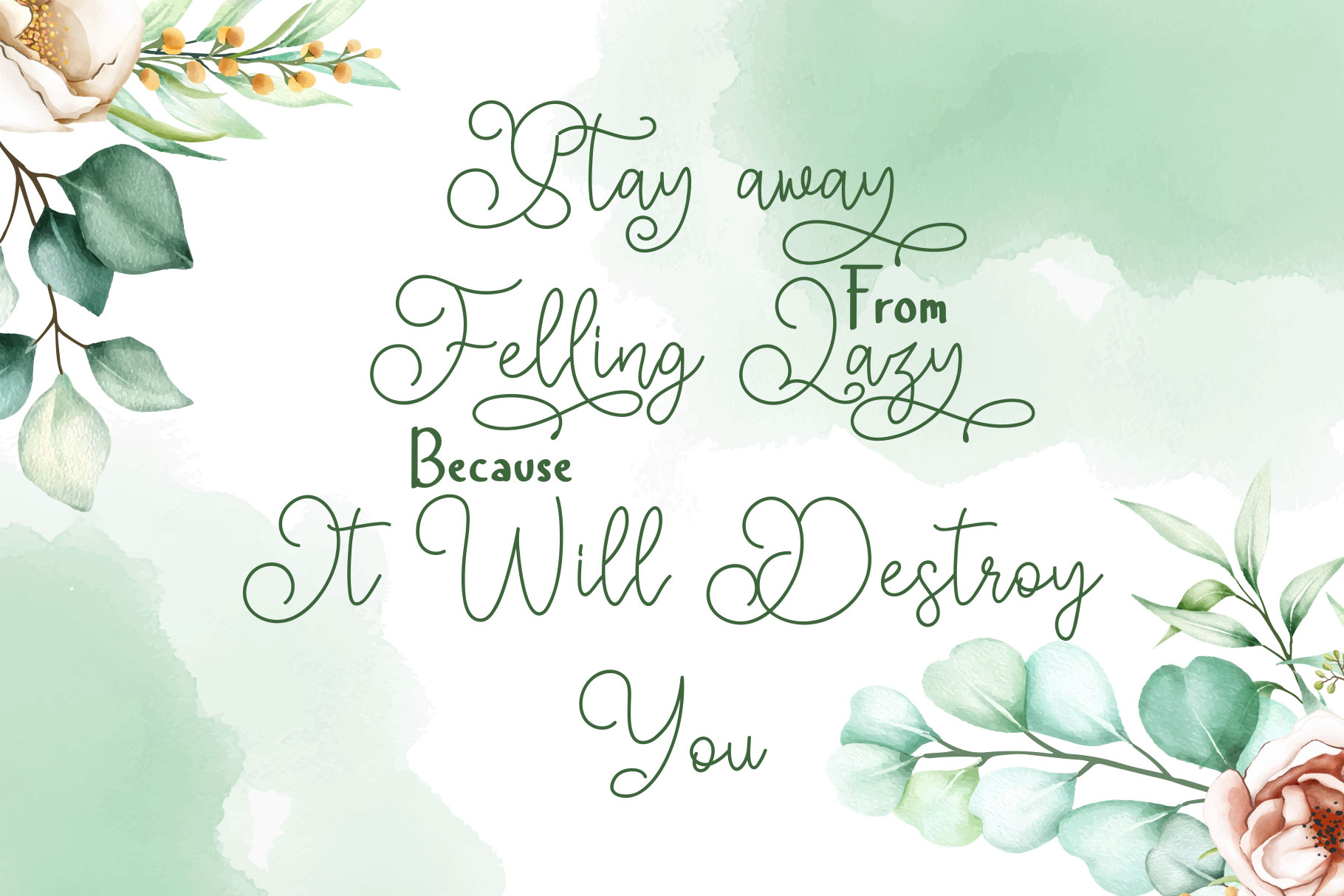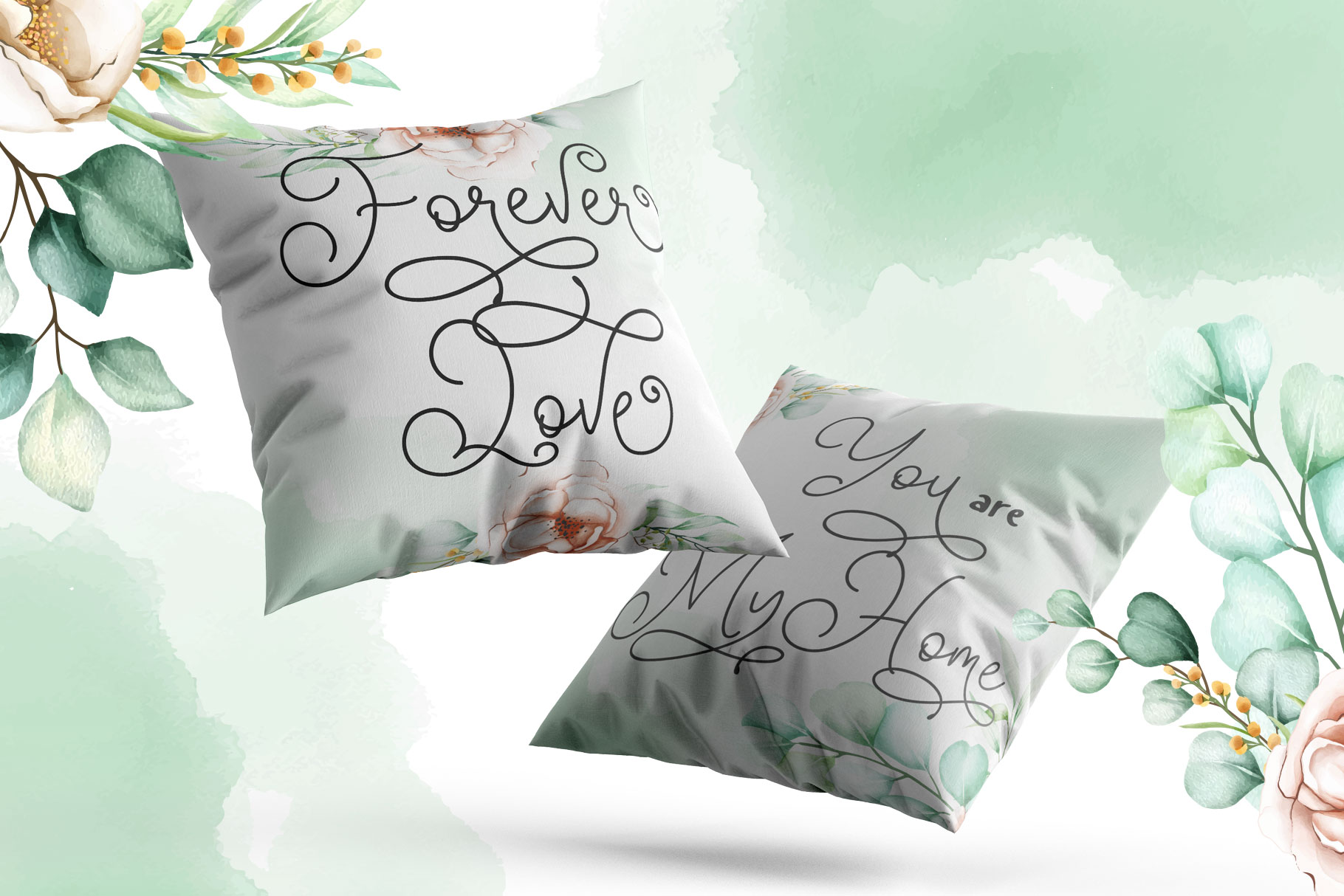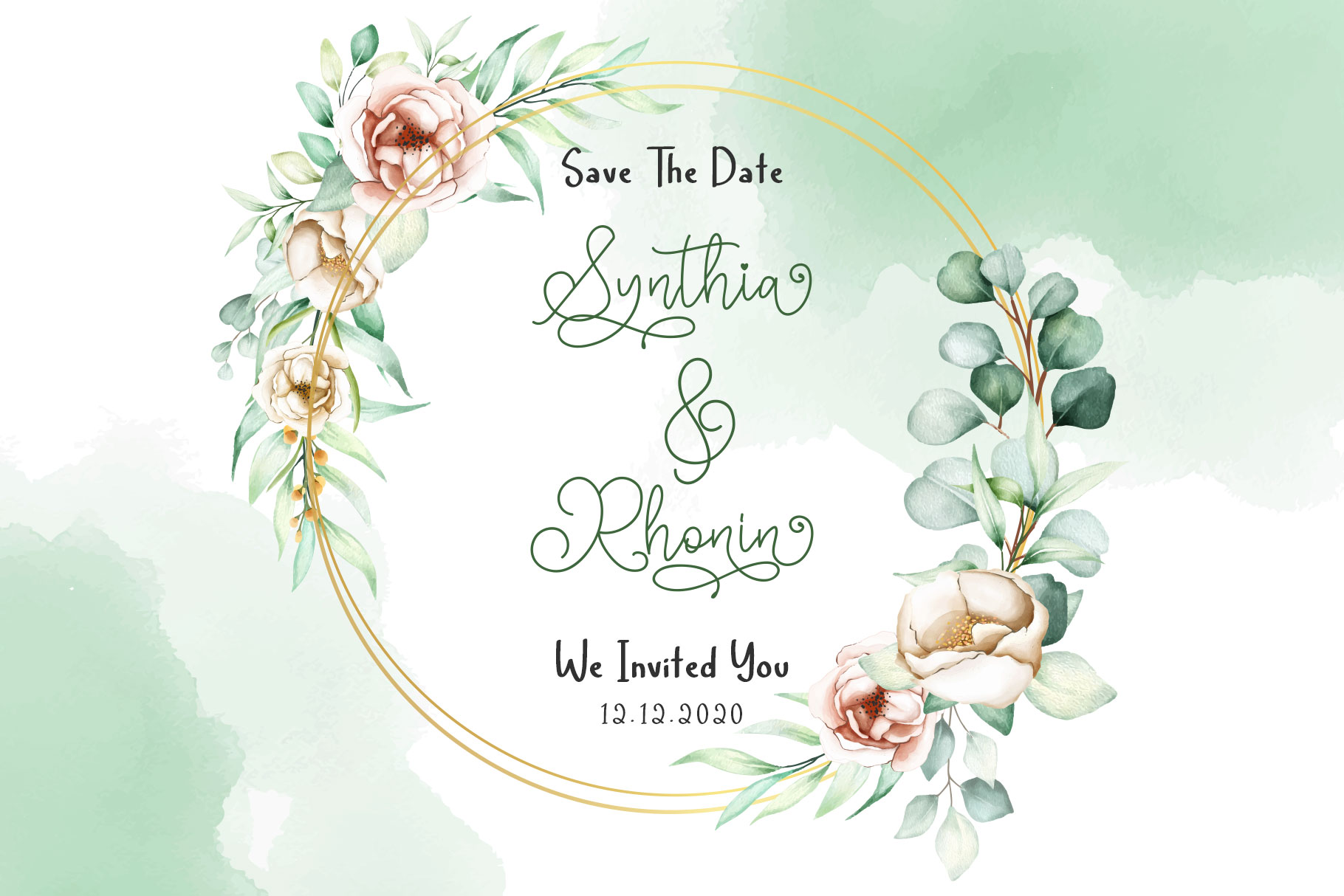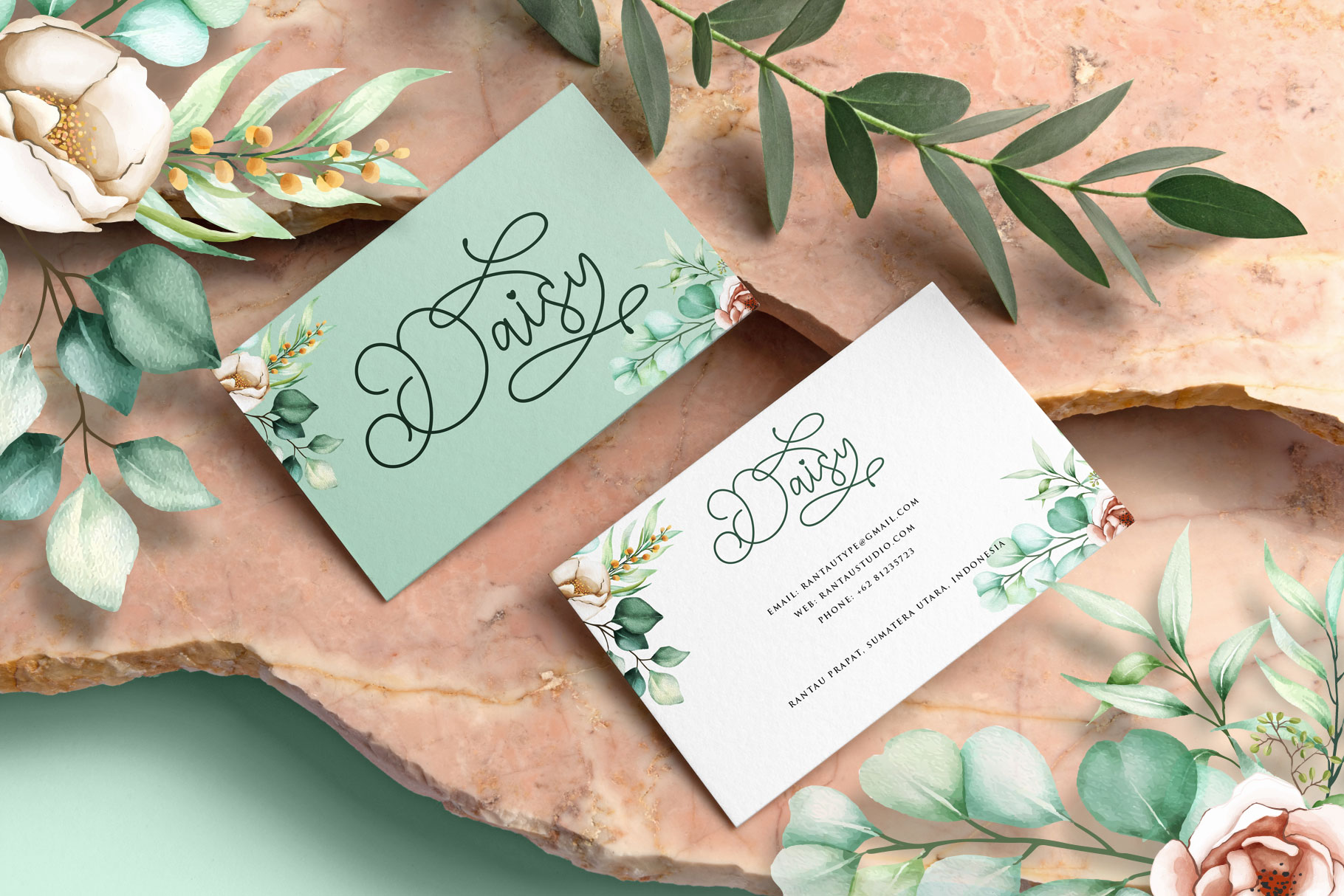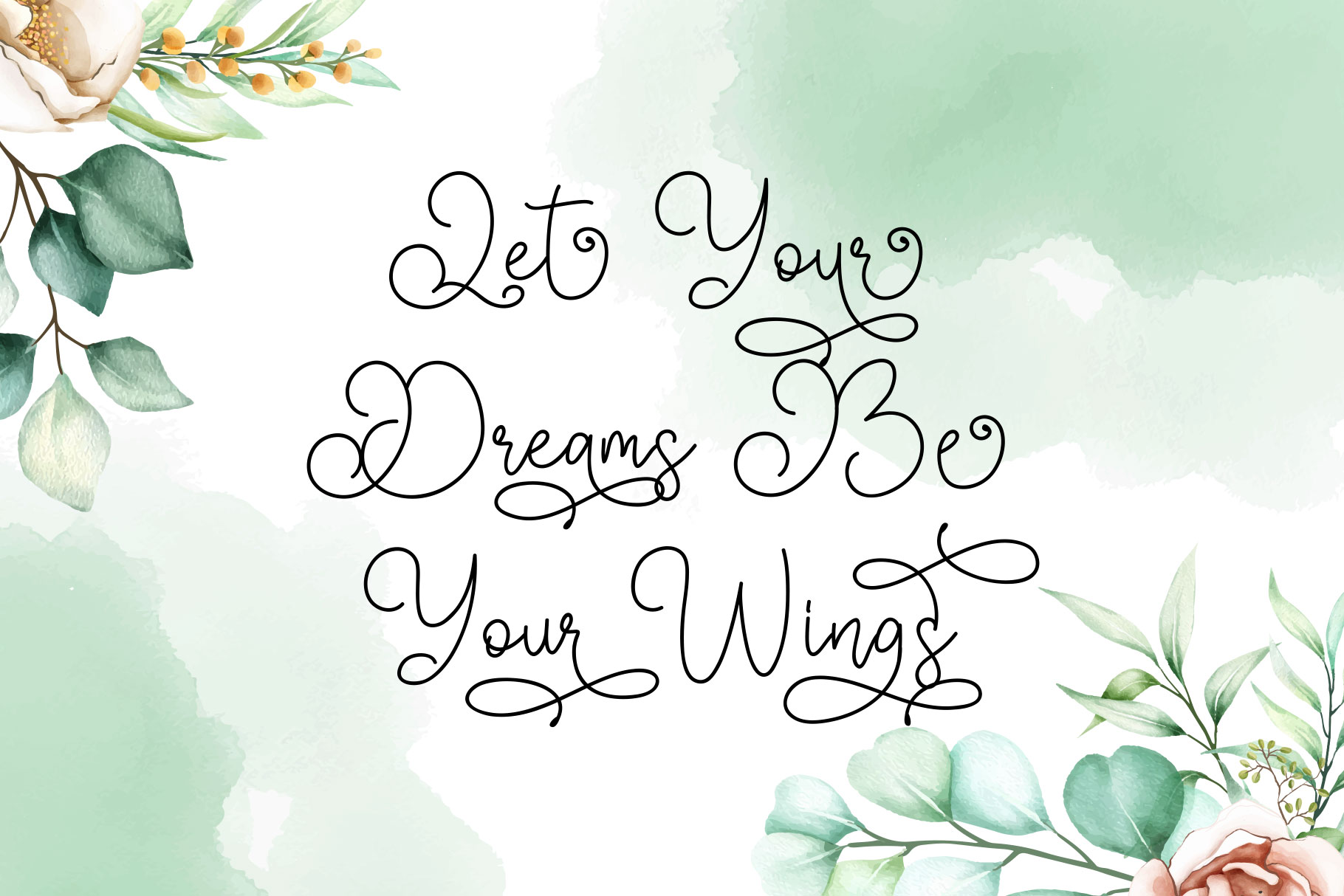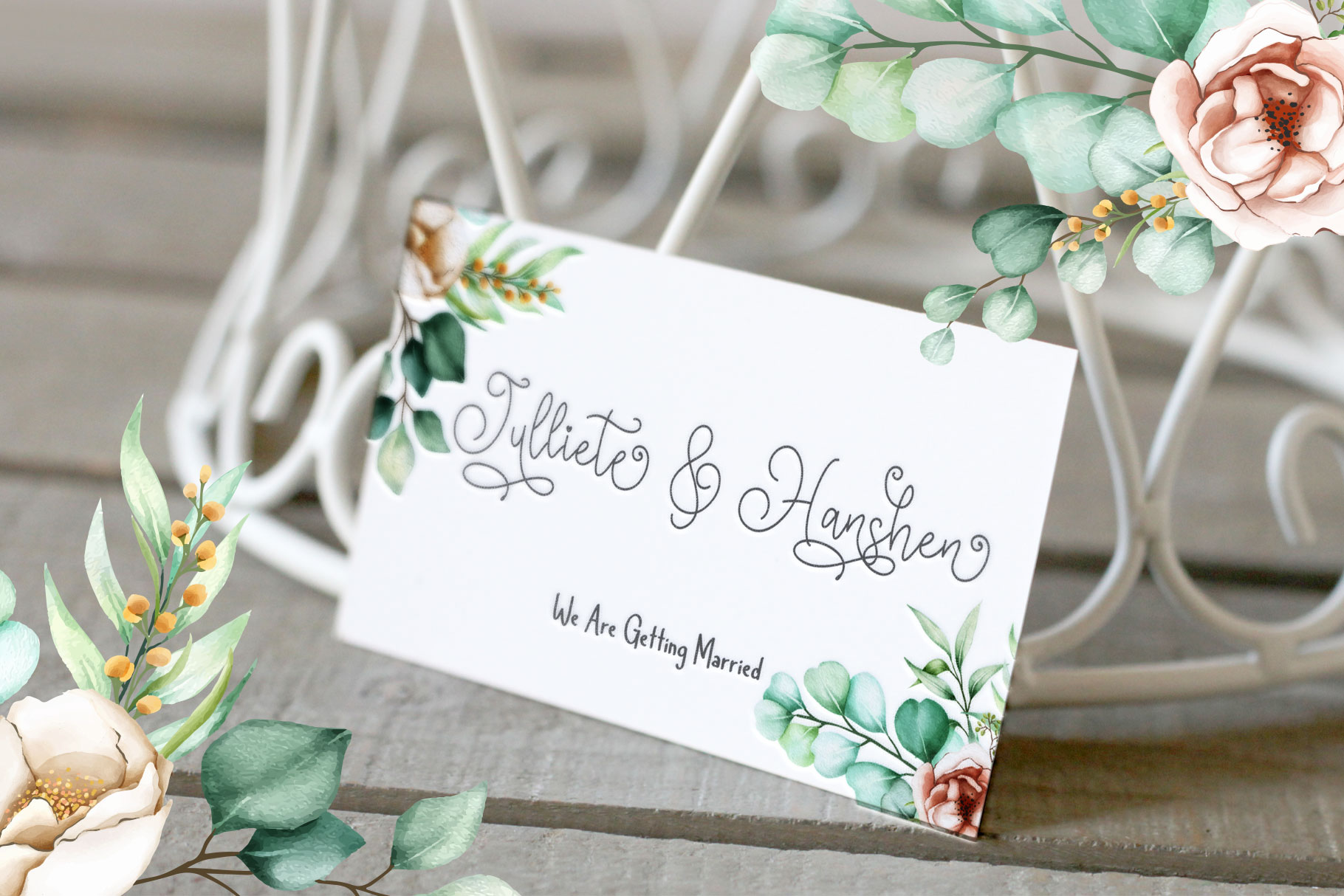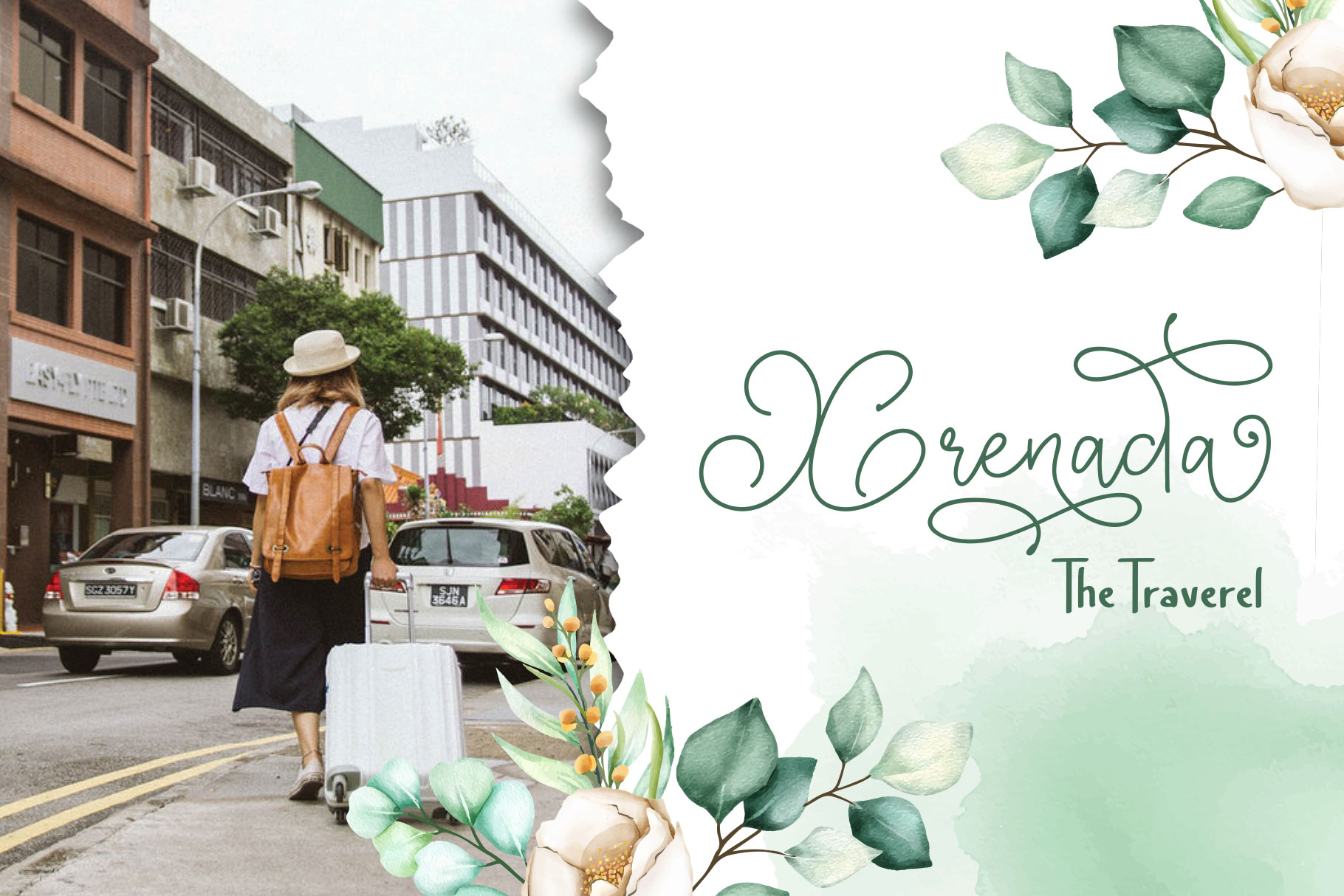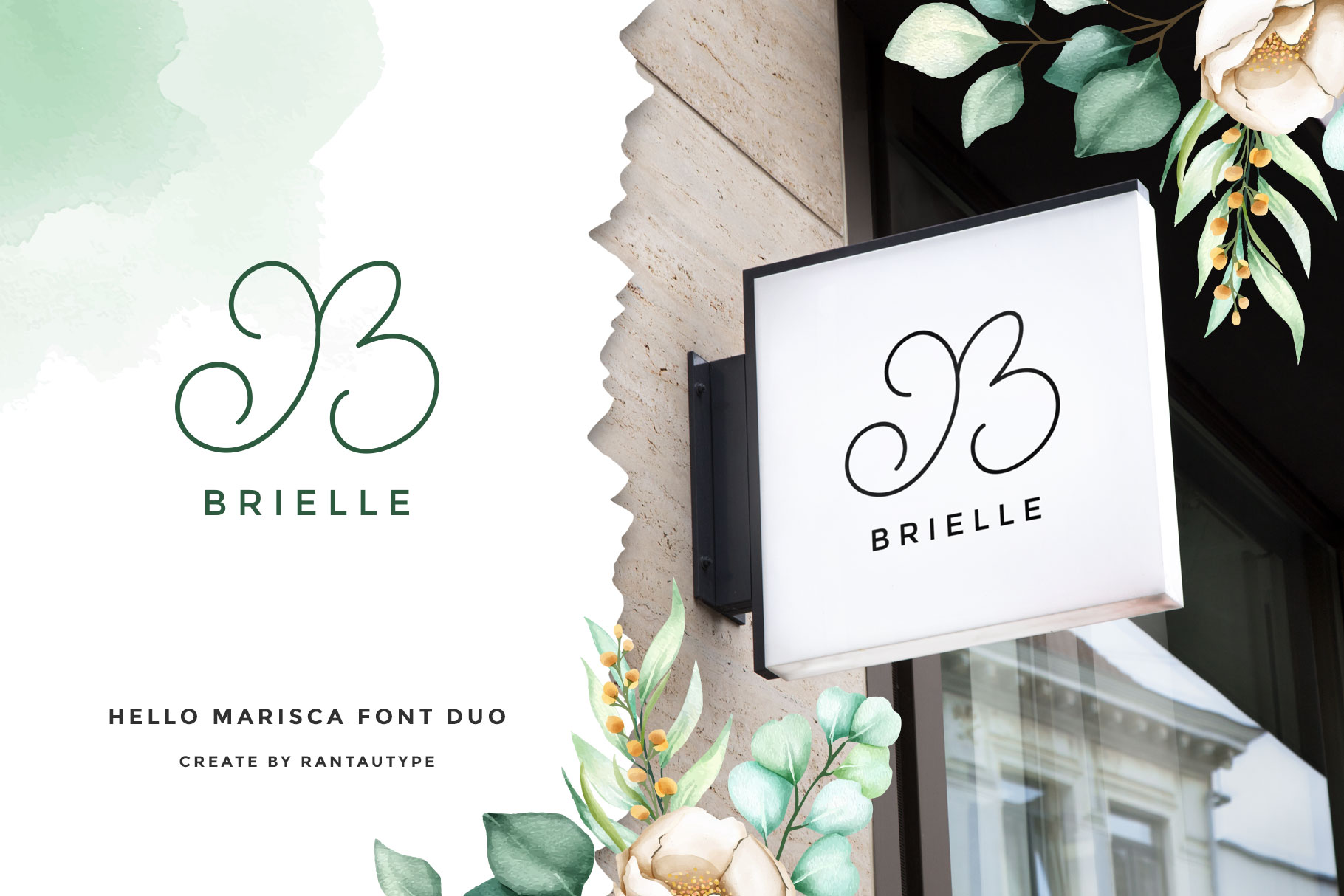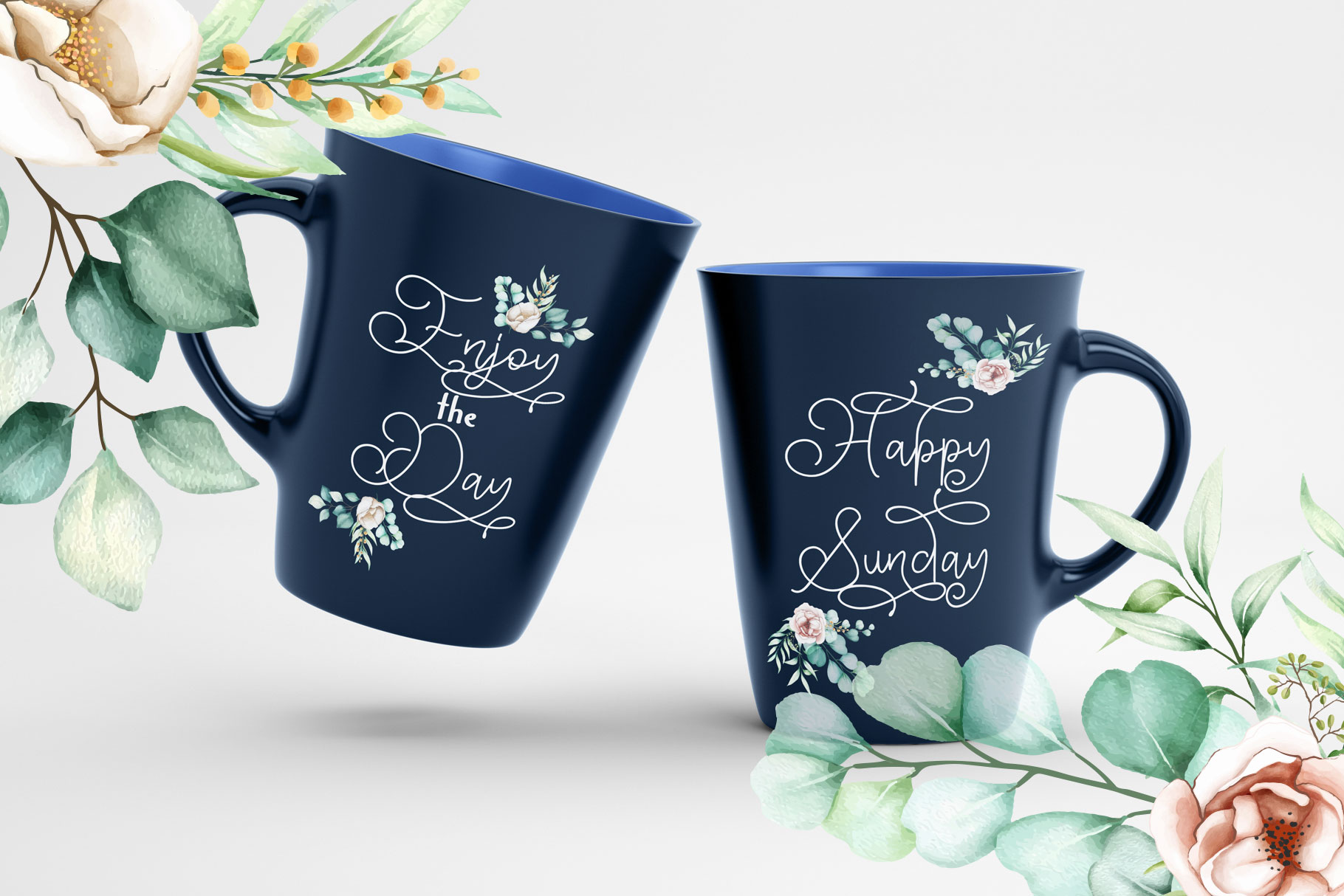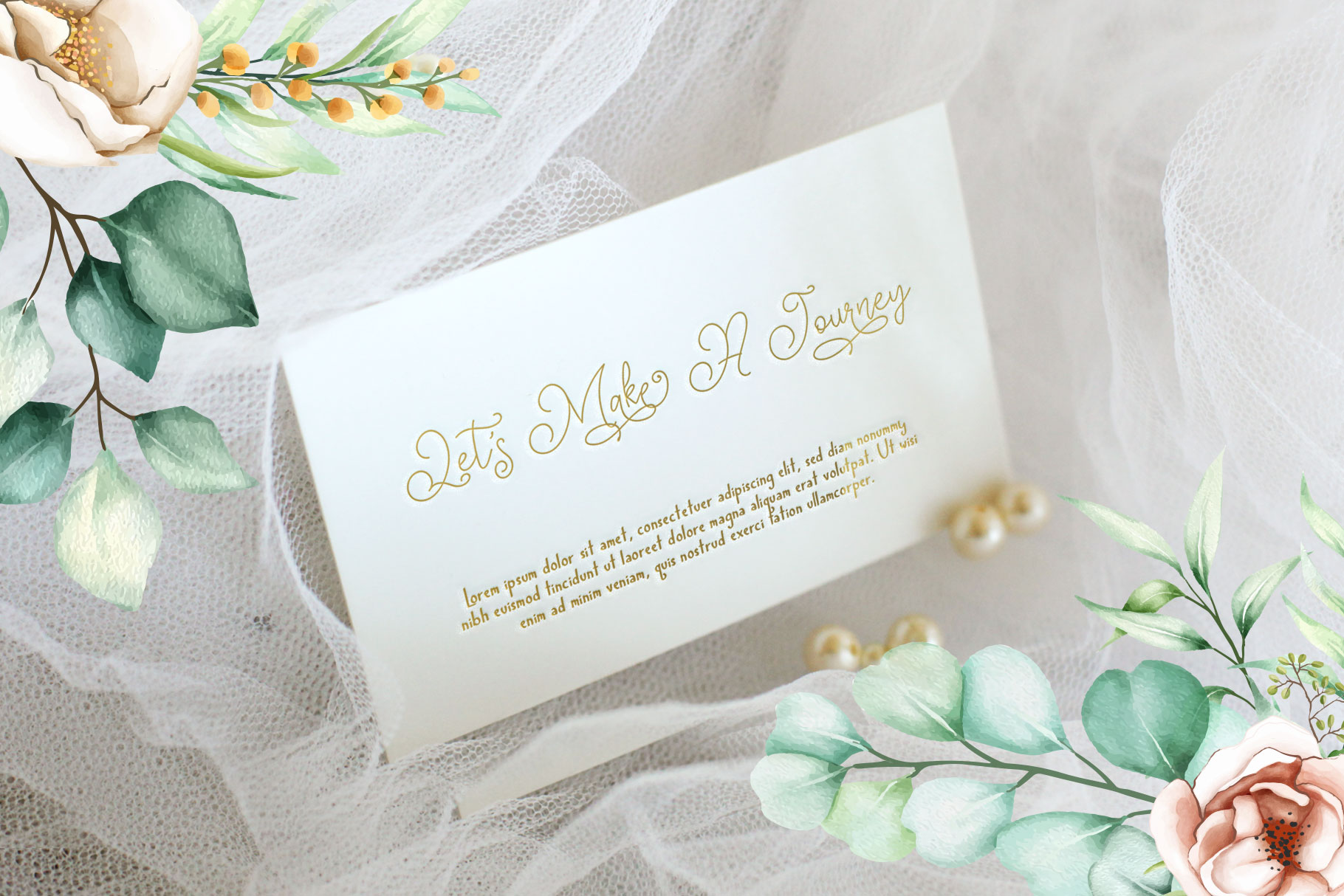
Hello Marisca Font Duo
Hello Marisca is lovely fontĀ  which can be interpreted professional. I keep this font looks modern, feminine, girly, catchy and easy to use.
Hello Marisca is the great choice for watermark on photography, signature or signature logo design, quotes, album cover, business card and many other design project. Hello Marisca is here to make your work to high level!!!